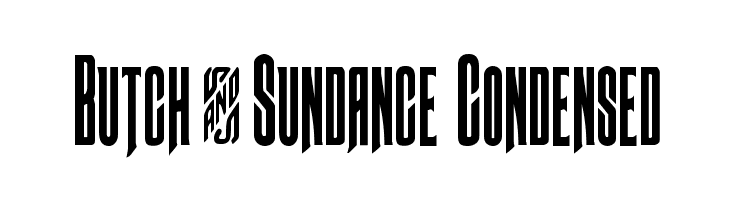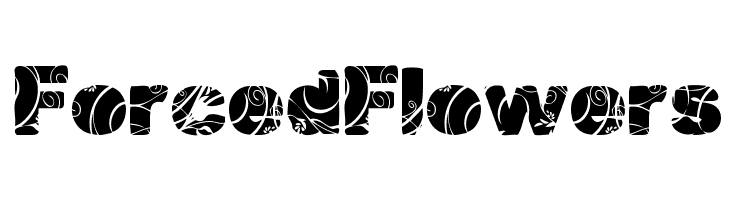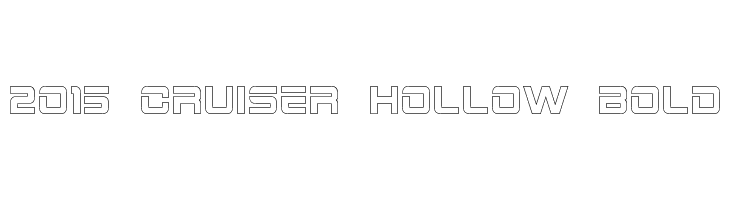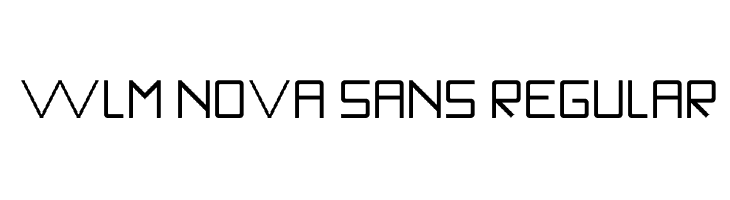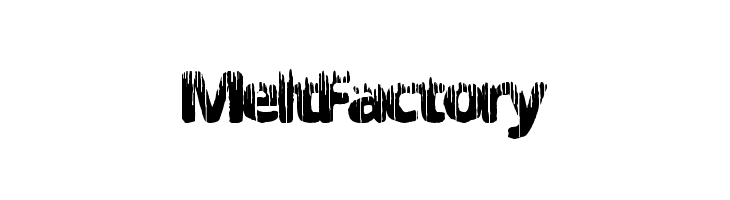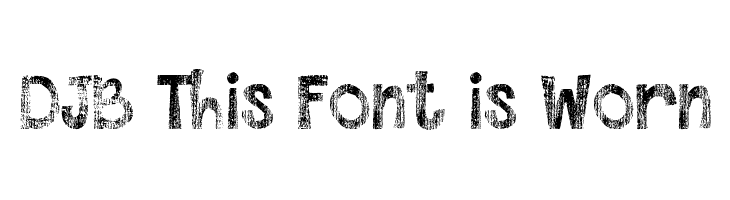
A bold, condensed font with a futuristic and industrial style.
A playful, hand-drawn font with irregular strokes and a casual aesthetic.
A bold, modern, and geometric condensed font with a sleek appearance.
A bold, condensed font with a vintage, western-inspired style.
A bold decorative font with intricate floral patterns in each character.
A bold, textured font with a distressed, vintage appearance.
A bold, geometric font with clean lines and modern style.
A bold, melting-effect font with a dynamic and edgy style.